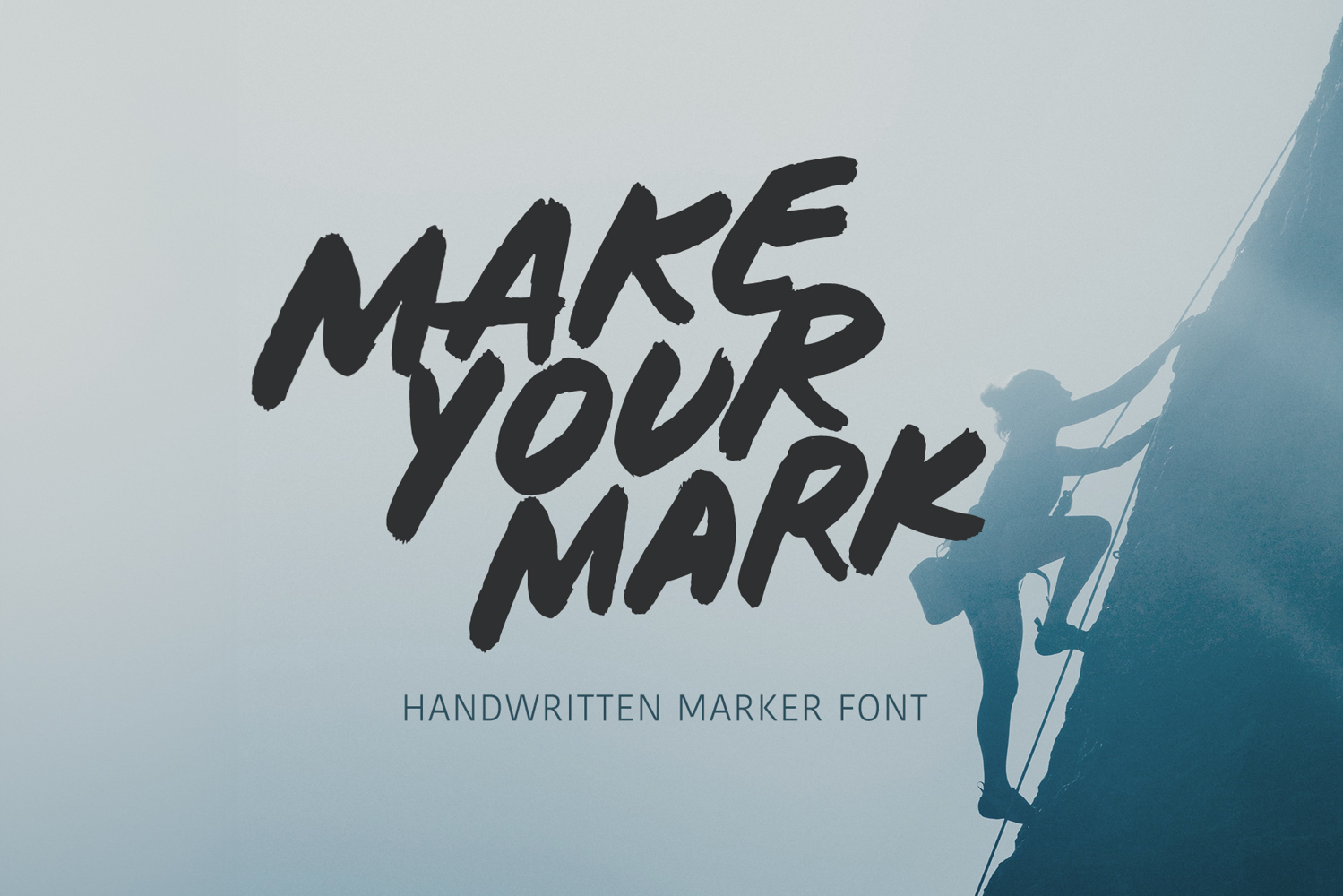
Make your Mark marker handwritten font with real handwritting letters
Make your Mark is a truly handwritten font, written with a real marker brush on paper, then carefully scanned, vectorized, and assembled into a professional typeface. This process preserves its beautifully imperfect texture and expressive strokes, making it ideal for headlines, bold statements, and designs that demand emotion and authenticity.
With a wide range of alternates and ligatures, this font allows you to create eye-catching, dynamic compositions that feel organic.
With multilingual support, Mark the Moment is ready to make an impact worldwide. Whether you're designing for a modern brand, an eco-friendly product, or attention-grabbing social media content, this font will add an unmistakable human touch to your work.
Perfect for Bold & Expressive Designs Mark the Moment is a versatile choice for:
• Logos & Branding – Give your brand a bold, handcrafted personality.
• Posters & Packaging – Create designs that stand out with a natural, artistic touch.
• Social Media & Marketing – Enhance your visuals with a human feel.
• Editorial & Book Covers – Add character to magazines, book titles, and more.
• Film, Music & Advertising – A great choice for creative promotions.